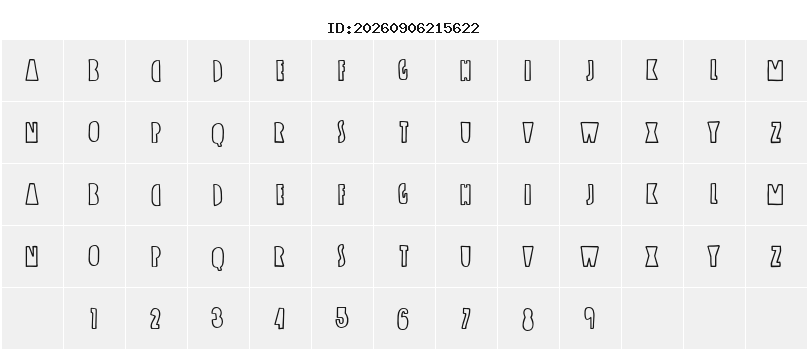
• Font Name: Up with the Birds
• Designer: =^_^=
About Up with the Birds.otf
Up with the Birds.otf is a modern, elegant sans-serif font designed for ultimate readability and visual harmony. Perfect for branding, headlines, web design, and print materials.